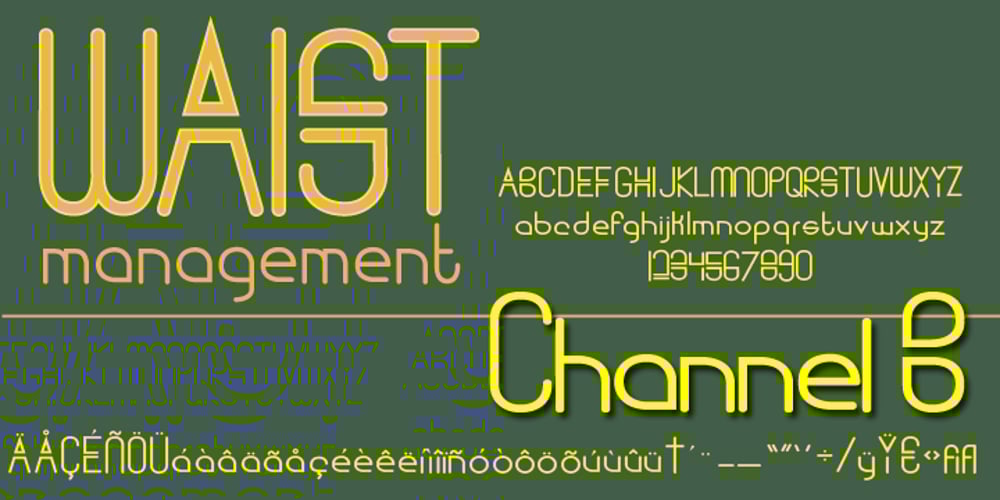
Channel B Font Family was designed by Randy Harris and published by Just My Type. Channel B contains 1 styles and family package options. Channel B was derived from the logo for Channel B, a British entertainment internet channel, anchored by former Soccer AM presenter Tim Lovejoy at www.dailymotion.com/channelbee. I’m not sure what it was in 2008 when I first ran across the logo, but that elegant capital B seemed to cry out for a font to support it. Many of the capitals, numbers and other glyphs of Channel B are split into a top and bottom, but not all. The tall, condensed capitals are contrasted to the rounded lowercase (derived from the bottom half of the B, rotated 180°).